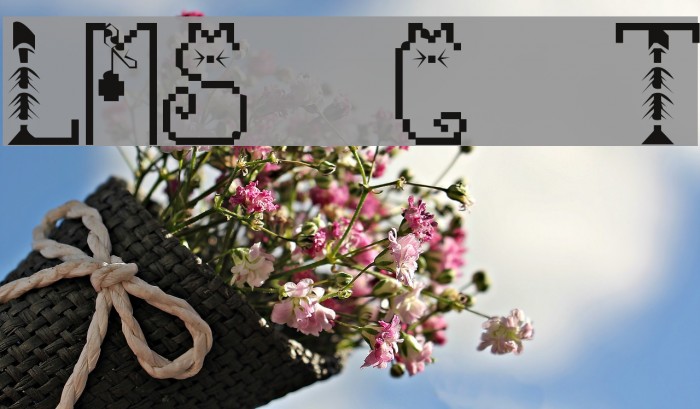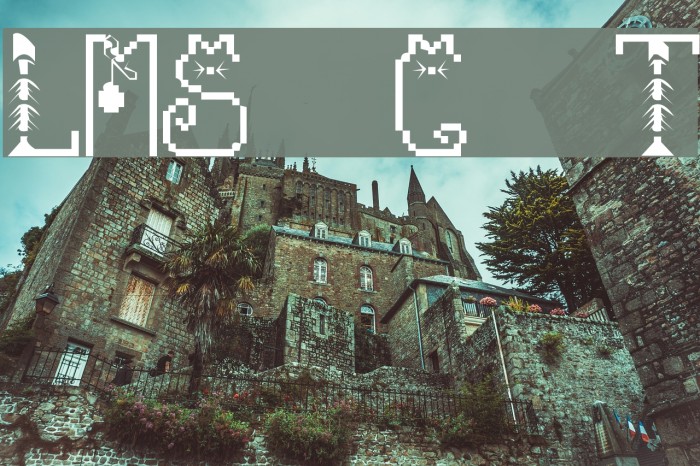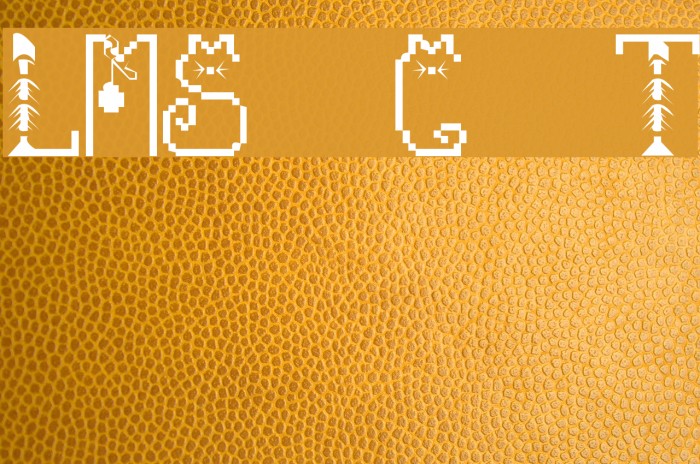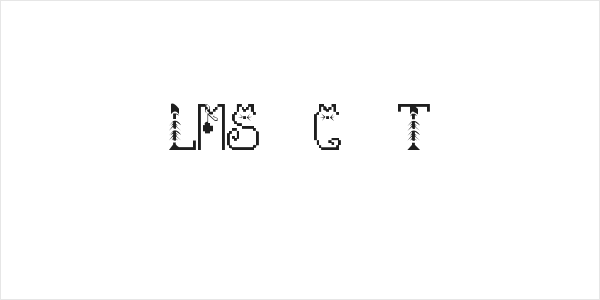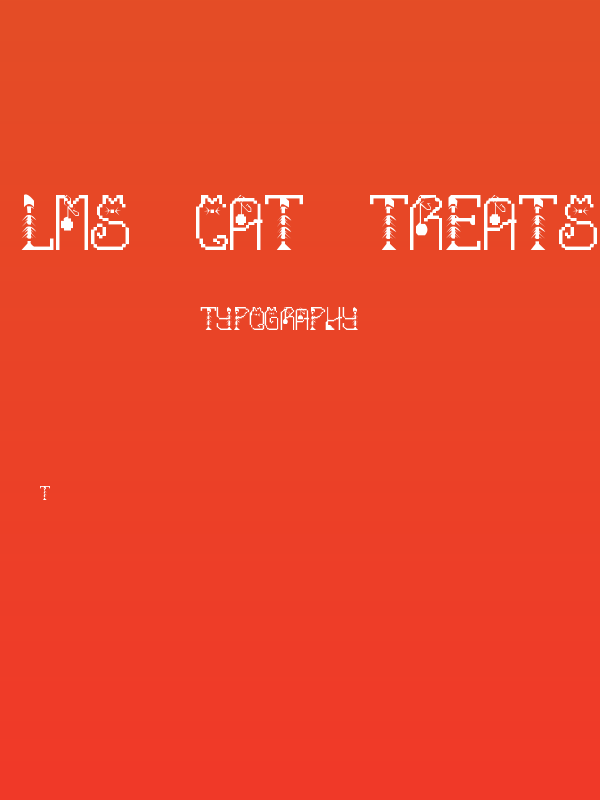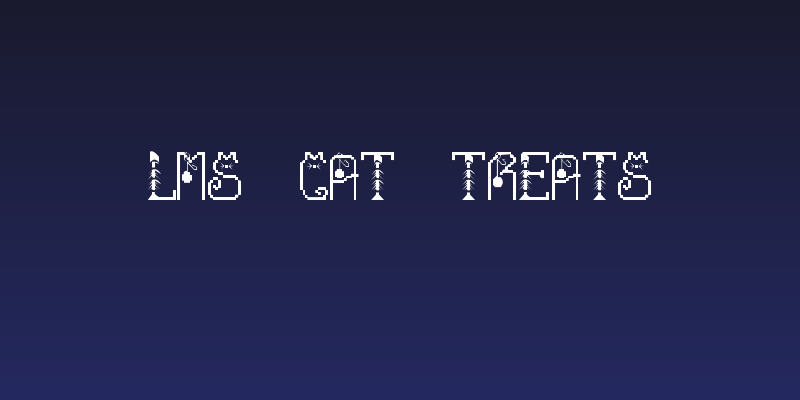
LMS Cat Treats Font
LMS Cat Treats Description
This playful and whimsical font features cat-themed elements integrated into each character, creating a unique and engaging visual experience. The letters are adorned with cat ears, tails, and whiskers, adding a charming and lighthearted touch. The design is highly decorative, with each character crafted to resemble a cat in various playful poses. The font maintains a consistent structure across uppercase and lowercase letters, numbers, and special characters, ensuring readability while maintaining its distinctive style. The intricate details and creative design make it ideal for projects that require a fun and engaging aesthetic.
Proposed ProjectsIdeal for children's books, pet-related branding, playful posters, and themed party invitations.